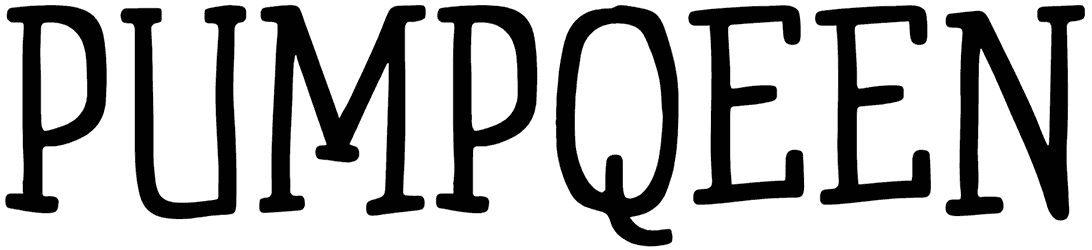
If you’re trying to stand out from the crowd while developing advertising, print T-shirts, branding, and logotypes, give Unbreakable, this serif font with a traditional style, a try to compliment your design.
This slab serif font does not contain lowercase letters; instead, it uses outlined caps in its place and filled characters in capitals, both of which generate a grungier vibe for your project. Check through our ever-growing library to view outstanding fonts and immediately increase your design’s quality.